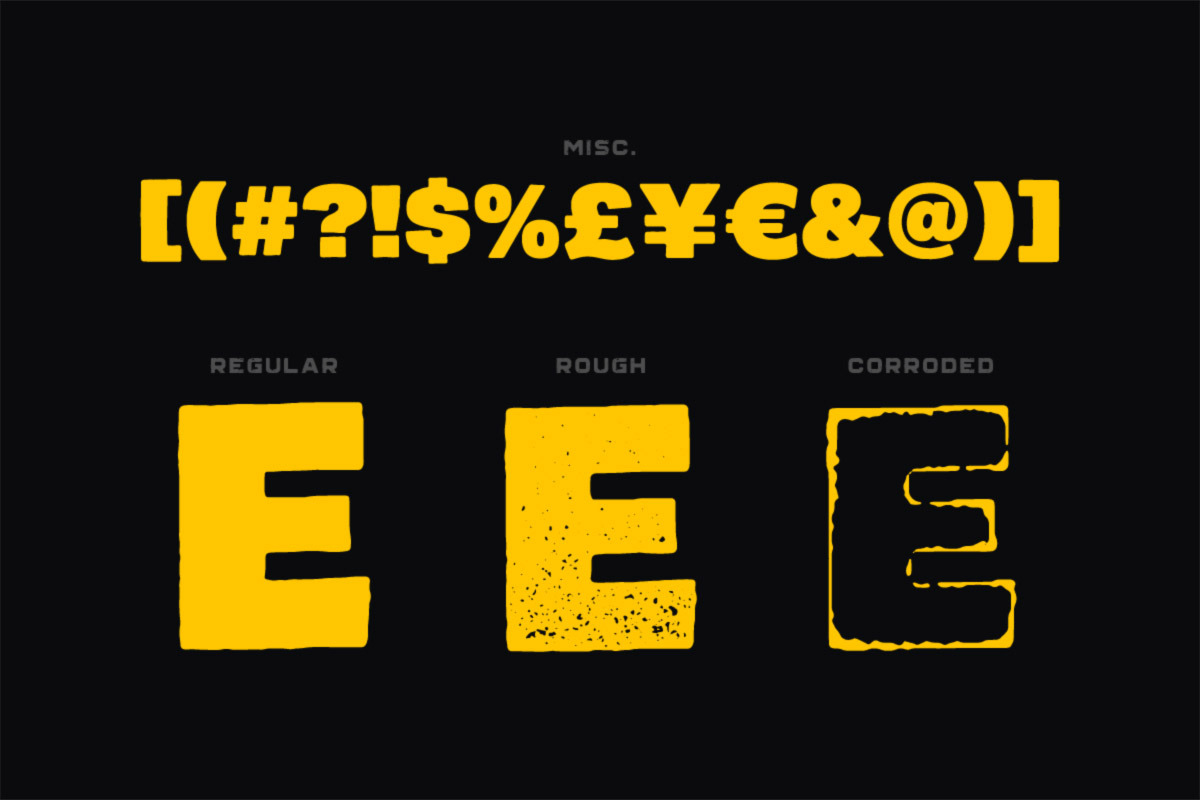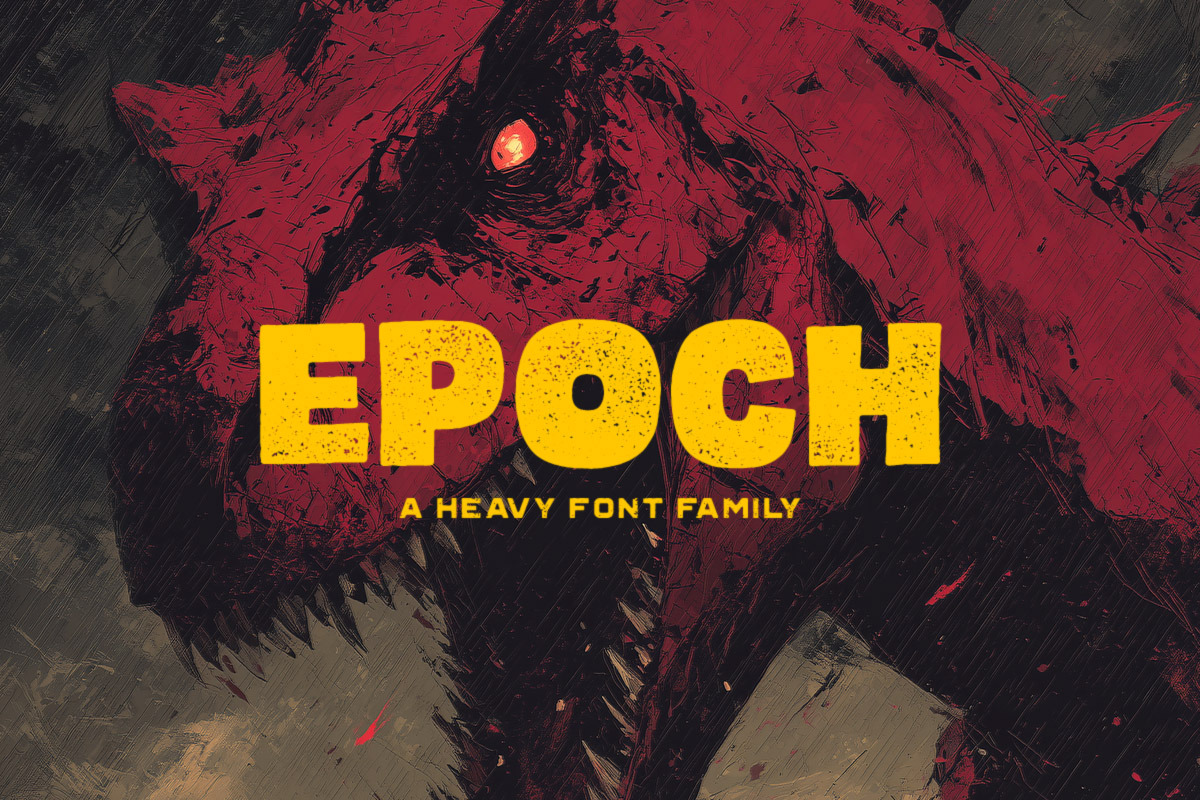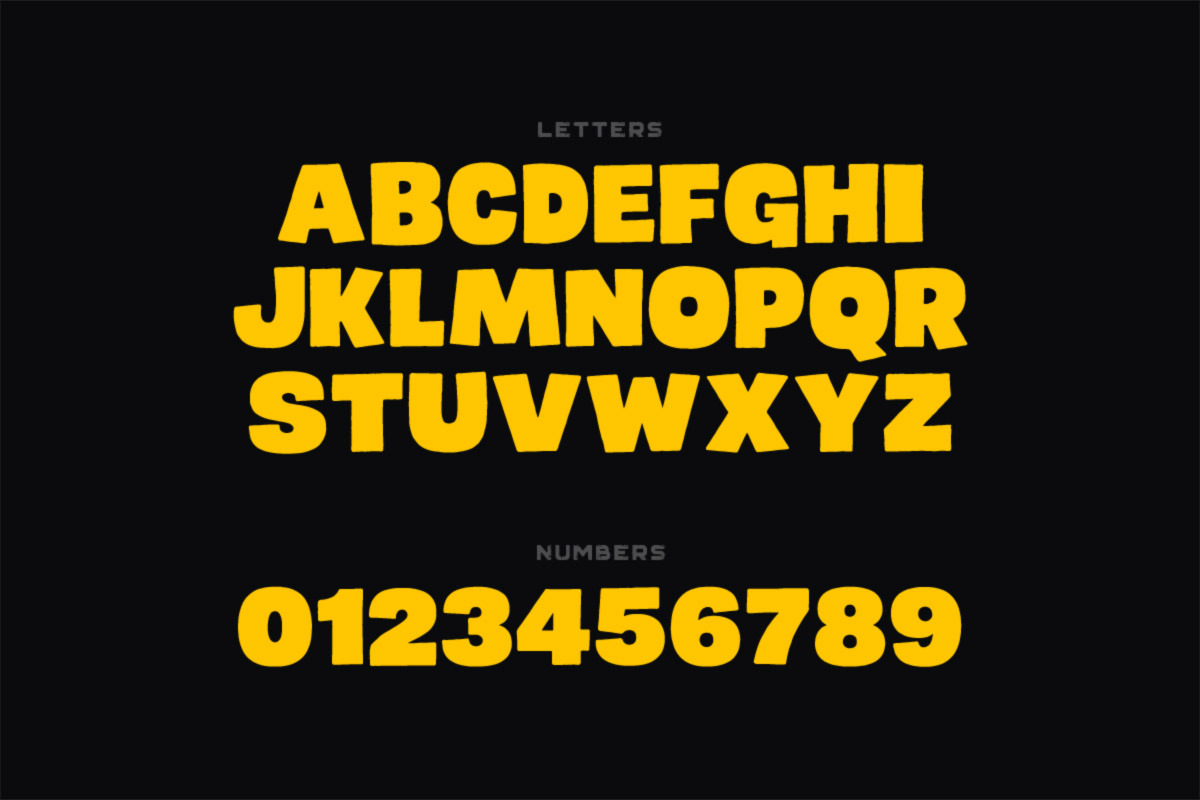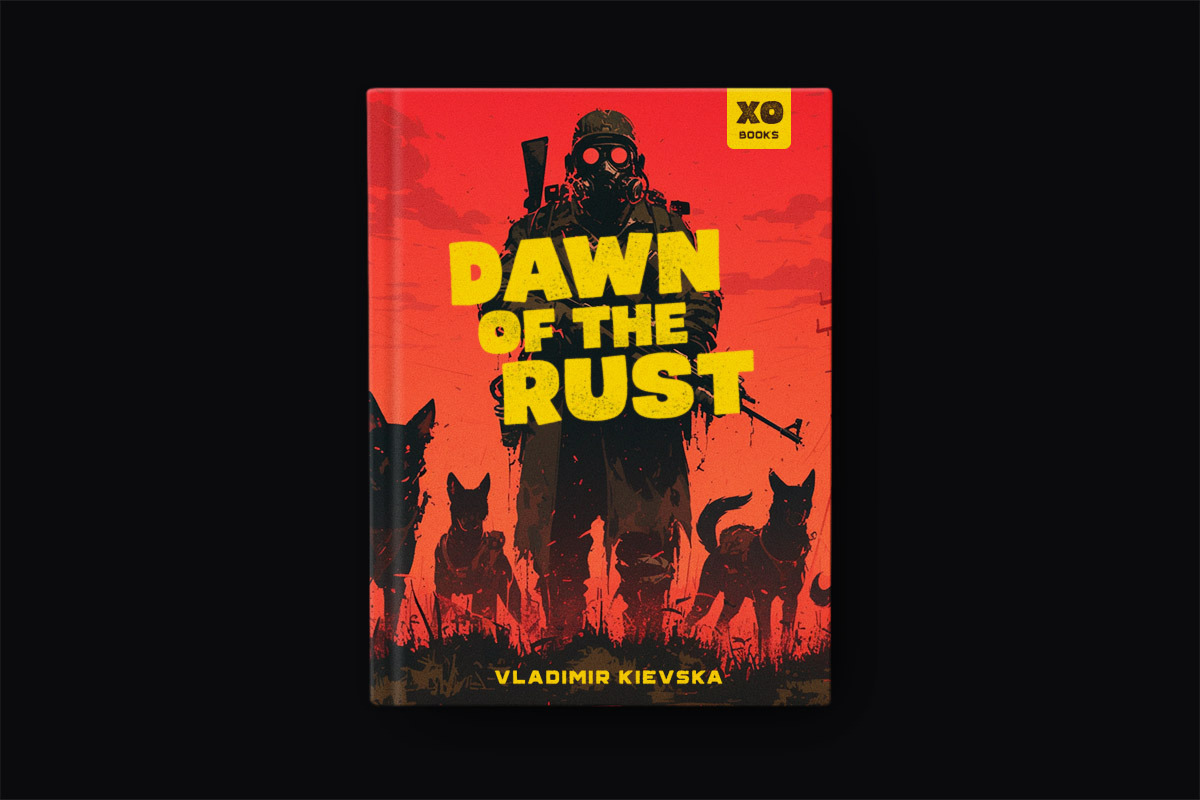
Epoch Typeface
Epoch is a bold heavy display font family built for maximum impact. With clean, rough, and corroded styles, it’s perfect for posters, game titles, logos, packaging, book covers, and gritty modern branding that needs loud, powerful typography.